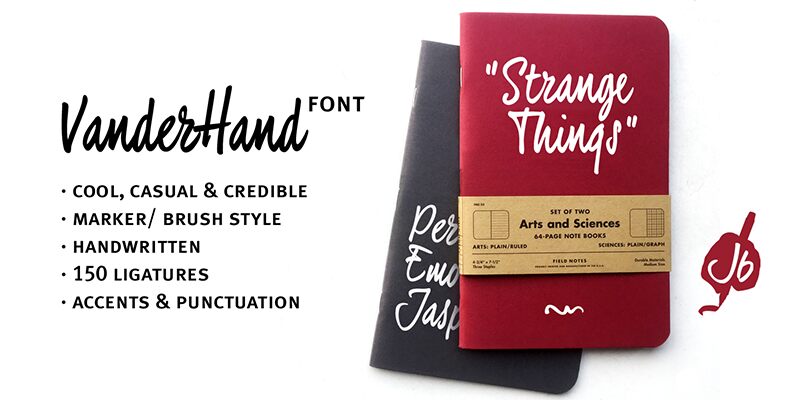
The VanderHand font is a friendly and easy to use handwritten font designed by JJW van der Ham. The complete commercial version, which is available here: https://www.joebobgraphics.com/fonts/vanderhand/ is so loaded with ligatures it could easily pass for actual handwriting.
The font was created with a felt-tip brush pen and so there are natural thick and thin parts in the characters. All writing was done upright with tightly fit characters. As a result this font has a unique instant logo quality. But you should really try this out for yourself.
O, and the font was written by Jeroen van der Ham.
Its his handwriting. Thats why its called VanderHand.